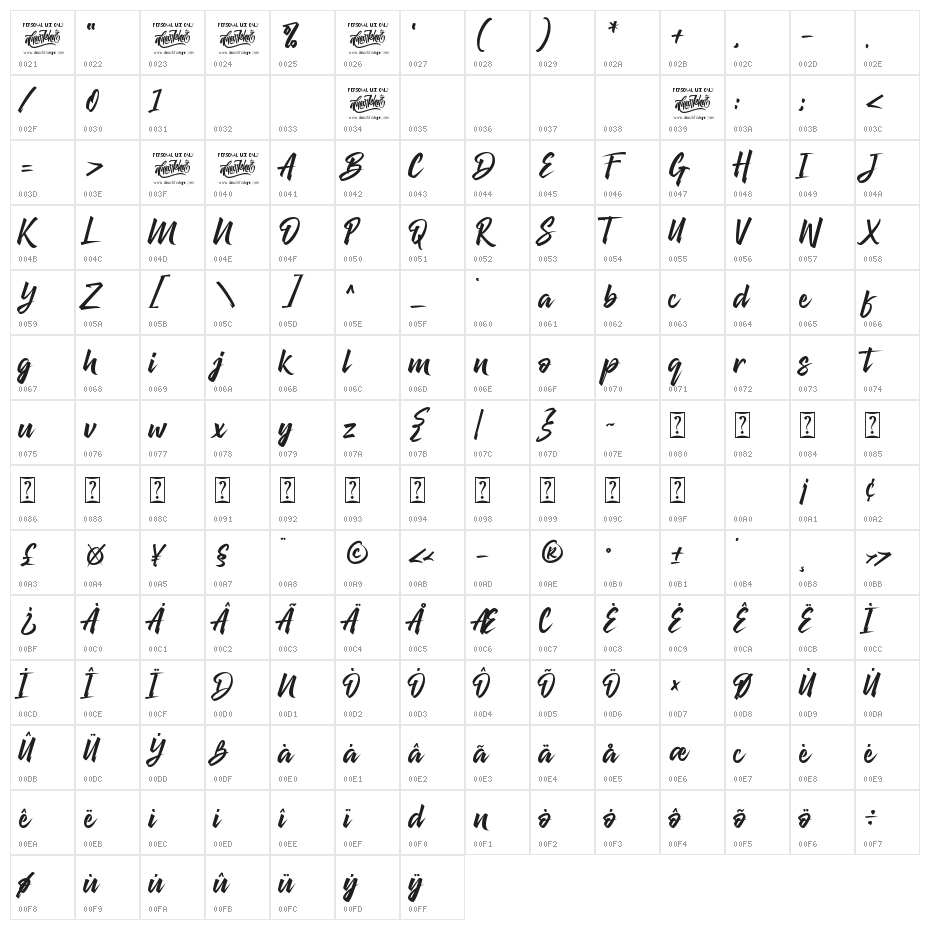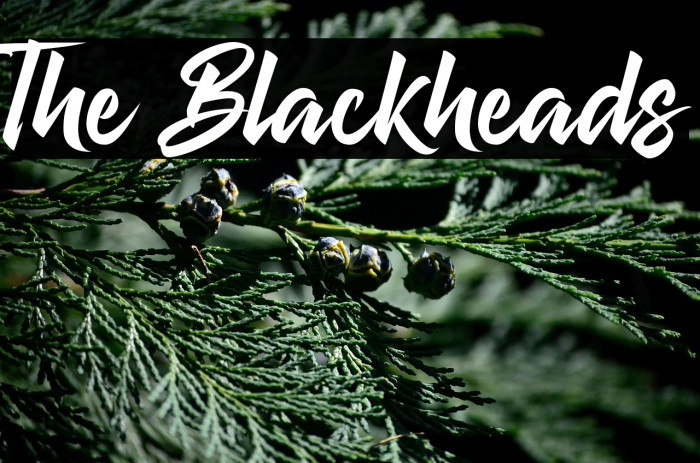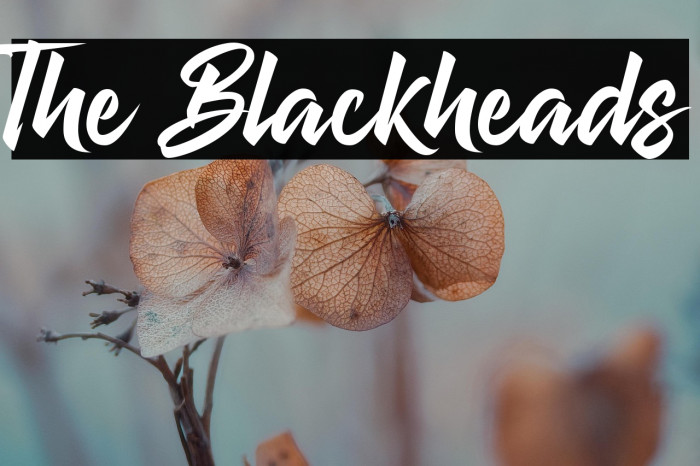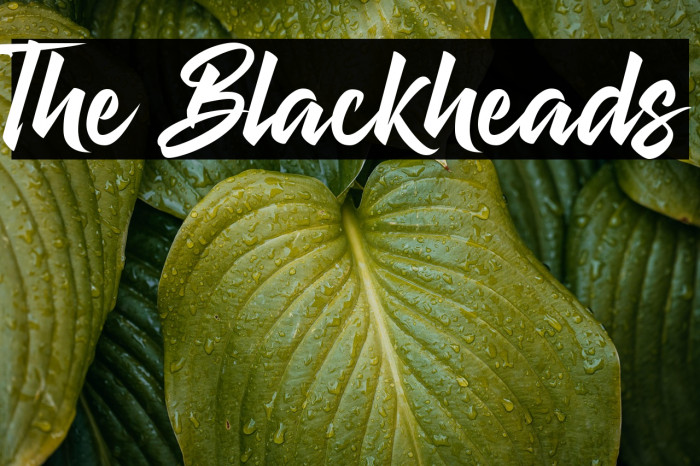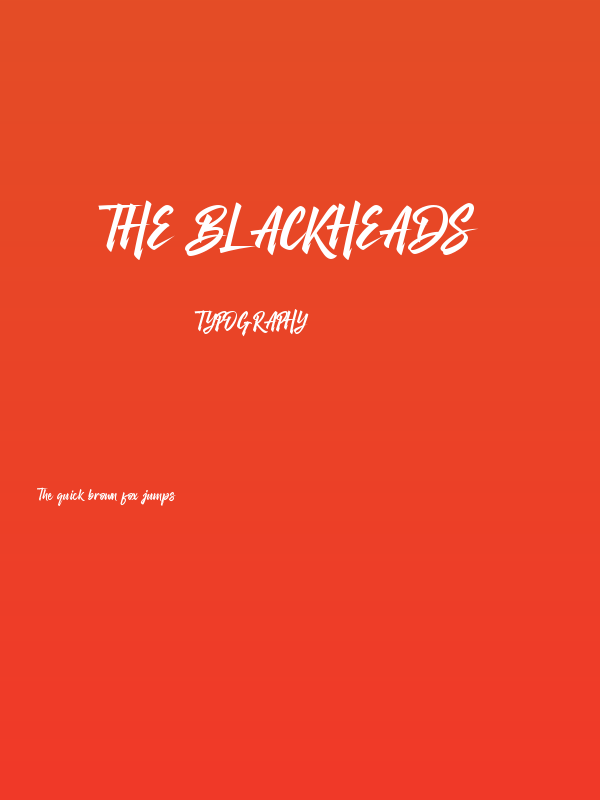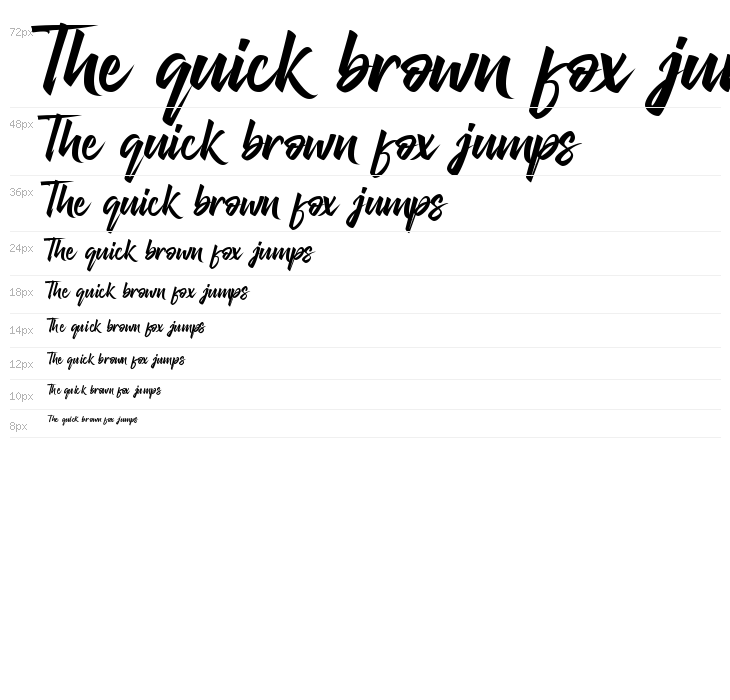
The Blackheads Font
The Blackheads Description
This font features a bold, energetic script style with a dynamic and flowing appearance. The characters are connected with sweeping strokes, giving it a handwritten feel that is both modern and expressive. The uppercase letters are particularly striking, with exaggerated curves and angles that create a sense of movement. The lowercase letters maintain this fluidity, offering a cohesive look across the alphabet. The numbers and special characters are designed to match the overall aesthetic, ensuring consistency throughout. This font is ideal for projects that require a personal touch or a bold statement.